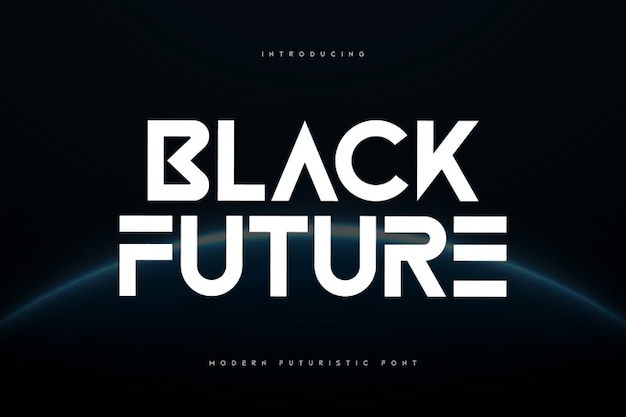
Black Future Font
Letterna Studios
"Black Future" is a bold and sleek font that captures the essence of a futuristic, modern era. Each letter is crafted with precise geometrical shapes, evoking the infinite possibilities of space. Perfect for tech projects, sci-fi themes, or cutting-edge branding, "Black Future" adds a dynamic and innovative touch, making it ideal for posters, logos, and designs that aim to push the boundaries of modern aesthetics.